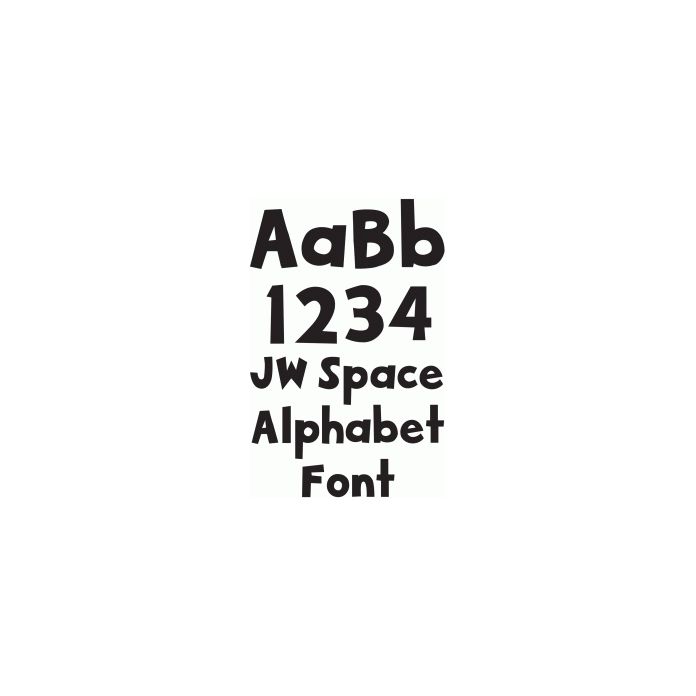
A font inspired by my Space Alphabet collection of designs: print & cut letters and shapes available in the Silhouette store and fabric available on Spoonflower.